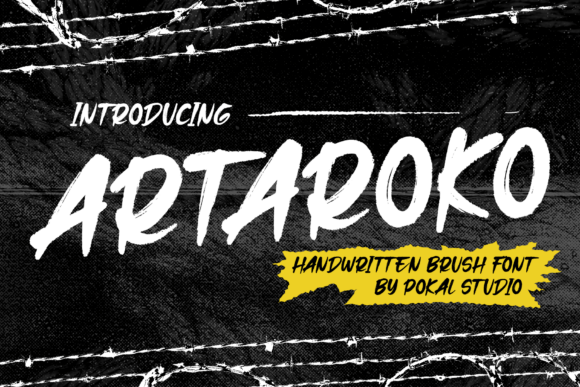
Unleash Your Creativity with Artaroko: The Ultimate Handwritten Brush Font
I’ll never forget the design project that pushed me to search for the perfect font. I was working on a streetwear brand’s campaign, and my client wanted a bold, eye-catching headline that screamed urban style. I scoured the internet for hours, but nothing seemed quite right – until I stumbled upon Artaroko, a handwritten brush font that instantly resonated with the vibe I was going for.
With its bold strokes and authentic hand-painted textures, Artaroko brought raw energy and fearless expression to my design. Inspired by street art and urban culture, this grunge brush font is perfect for designers, crafters, and creative hobbyists looking to add a touch of edginess to their projects.
What Makes Artaroko Special?
Artaroko is an all-caps, display font designed to make a statement. Its rough edges and textured details give it a real, energetic, and handcrafted feel that’s perfect for:
- Urban branding & streetwear designs
- Music covers, festival & gig posters
- Graffiti-inspired artwork
- Bold social media graphics
- Logos, apparel & merchandise
What I Love About Artaroko ✨
- 💥 Bold and attention-grabbing: Artaroko is perfect for making a statement with your designs.
- 🎨 Authentic hand-painted textures: The font’s textured details give it a unique, handcrafted feel.
- 🖌️ Versatile: Artaroko can be used for a wide range of projects, from urban branding to social media graphics.
- ✅ Easy to read: Despite its bold and textured nature, Artaroko is surprisingly easy to read, even in smaller sizes.
While Artaroko is an amazing font, it’s not without its limitations. For example:
- 🤔 Limited use in body text: Due to its bold and textured nature, Artaroko may not be the best choice for body text or longer blocks of text.
- ⚠️ Not suitable for fine details: The font’s rough edges and textured details may not be suitable for designs that require fine details or precision.
The Story Behind Artaroko
Artaroko was inspired by the urban streets and the world of graffiti. Its creator, a young designer with a passion for street art, wanted to capture the raw energy and fearless expression of the urban culture in a font. With Artaroko, they aimed to create a tool that would allow designers to bring that energy to their projects.
Q: What is Artaroko, and what is it used for?
A: Artaroko is a handwritten brush font designed for bold and eye-catching designs. It’s perfect for urban branding, streetwear designs, music covers, and graffiti-inspired artwork.
Q: Is Artaroko easy to read?
A: Despite its bold and textured nature, Artaroko is surprisingly easy to read, even in smaller sizes.
Q: Can I use Artaroko in digital and print designs?
A: Absolutely! Artaroko is a versatile font that can be used in both digital and print designs, from social media graphics to posters and flyers.